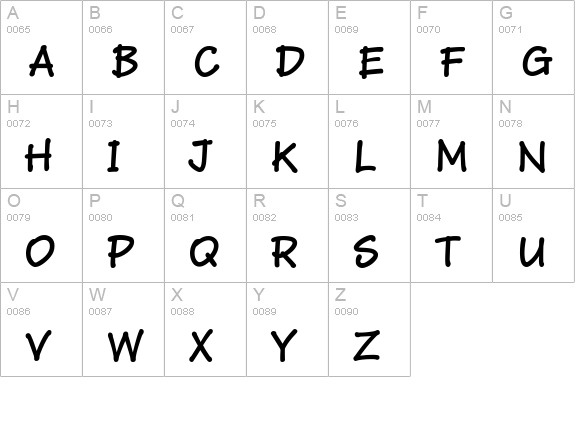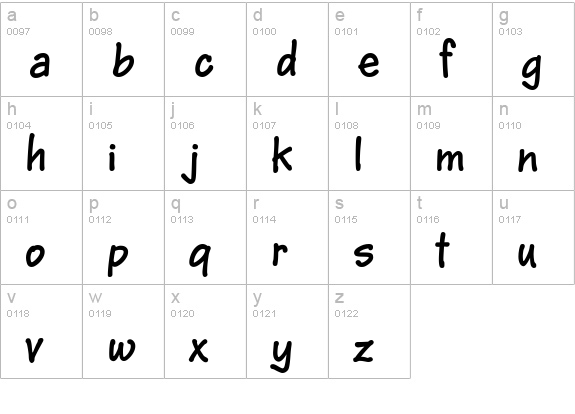
JanieHmkBold Font Details
JanieHmkBold is a stunning and elegant font that exudes confidence and sophistication. With its bold and curvaceous letterforms, it instantly captures attention and adds a touch of flair to any design project. This font is perfect for creating striking headlines, logos, posters, and branding materials that demand to be noticed. What makes JanieHmkBold even more appealing is that it is free to download! Yes, you read that right. This incredible font is freely available at FontsMarket.com, a trusted source for high-quality fonts. Whether you're a professional designer or a hobbyist, you can now enjoy the beauty and versatility of JanieHmkBold without spending a dime. Downloading JanieHmkBold is quick and easy. Simply visit FontsMarket.com, search for JanieHmkBold, and click the download button. Within seconds, you'll have this exceptional font ready to use in your next creative project. The versatility of JanieHmkBold is truly remarkable. Its bold and impactful appearance makes it perfect for headlines and titles, while its elegant curves and smooth lines make it equally suitable for body text and paragraphs. It effortlessly combines both strength and grace, making it a versatile choice for a wide range of design applications. With JanieHmkBold, you have the freedom to explore your creativity. Its bold and distinctive style allows you to make a statement and leave a lasting impression. Whether you're designing a magazine, creating a website, or crafting a presentation, JanieHmkBold is the perfect companion to elevate your work to new heights. Don't miss out on this incredible opportunity to enhance your design projects with JanieHmkBold. Visit FontsMarket.com today to download this stunning font for free and unlock a world of creative possibilities.